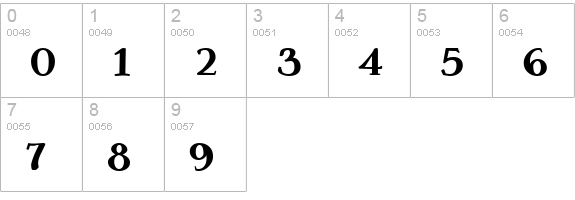
IngrianEuroikaH Bold Font Details
IngrianEuroikaH Bold is a strong, high-contrast variant in the IngrianEuroikaH typeface family \xE2\x80\x94 well suited to headlines, attention-grabbing titles, and strong calls-to-action.
IngrianEuroikaH Bold is a visually striking and versatile font that exudes confidence and modernity. Its bold and assertive letterforms make a bold statement, perfect for headlines, branding, and any design project that requires a touch of boldness. The IngrianEuroikaH Bold font features a unique blend of geometric and rounded elements, resulting in a harmonious and eye-catching typeface. The thick strokes and strong presence of this font demand attention, while the carefully crafted curves add a touch of elegance and sophistication. What sets IngrianEuroikaH Bold apart is not just its striking design, but also its versatility. It can effortlessly adapt to various design styles and contexts, making it a go-to choice for both print and digital projects. Whether you're designing a poster, logo, website, or packaging, IngrianEuroikaH Bold will add a touch of boldness and personality to your designs. One of the best things about IngrianEuroikaH Bold is that it is freely available to download at FontsMarket.com. This means that you can easily access and use this stunning font without any cost or restrictions. With just a few clicks, you can bring this bold and impactful font into your design arsenal and elevate your creative projects to new heights. So why wait? Download IngrianEuroikaH Bold now and let its boldness and versatility take your designs to the next level. Whether you're a professional designer or a creative enthusiast, this font will undoubtedly become an essential tool in your design toolkit. Embrace the power of boldness and make a statement with IngrianEuroikaH Bold.